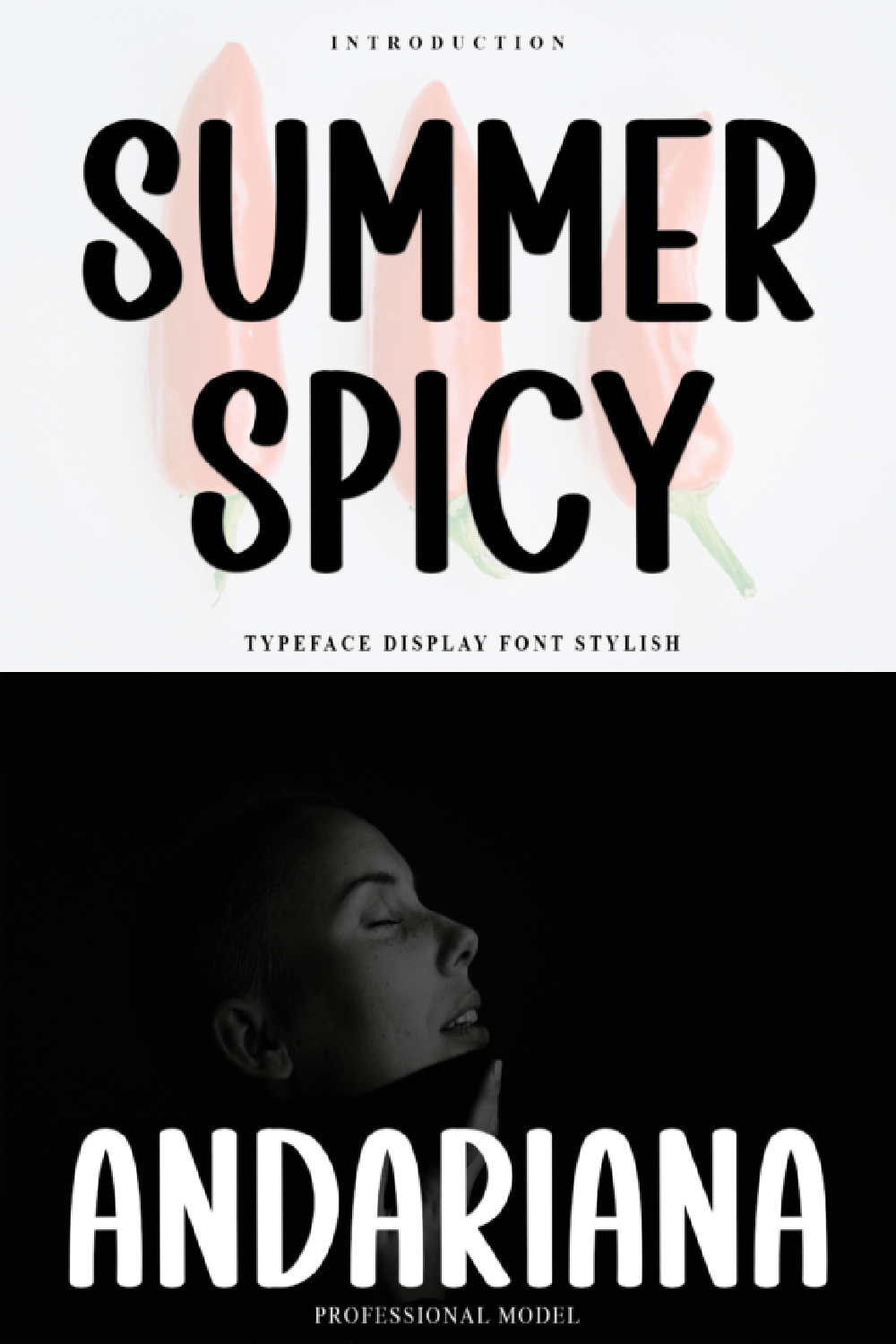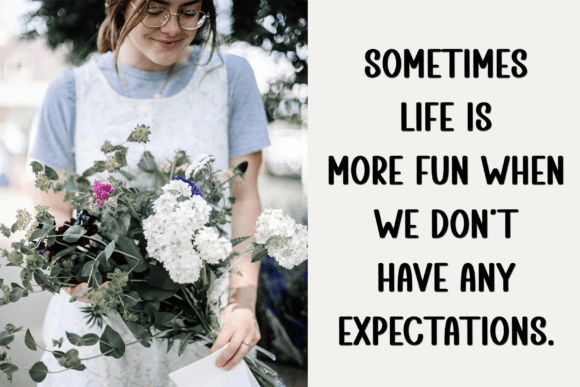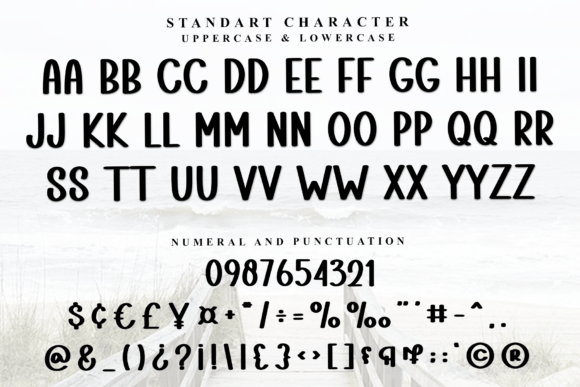
Summer Spicy Font: A Bold & Playful Display Font for Creative Projects
About the Summer Spicy Font
Presenting Summer Spicy Font, a unique and stylish typeface that will make your work stand out. Summer Spicy is a beautiful and eye-catching font designed with a soft, unique touch. Its distinctive strokes give it a special character, making it meaningful and versatile for future use. With various characters, it’s perfect for design projects, crafts, and other creative works.